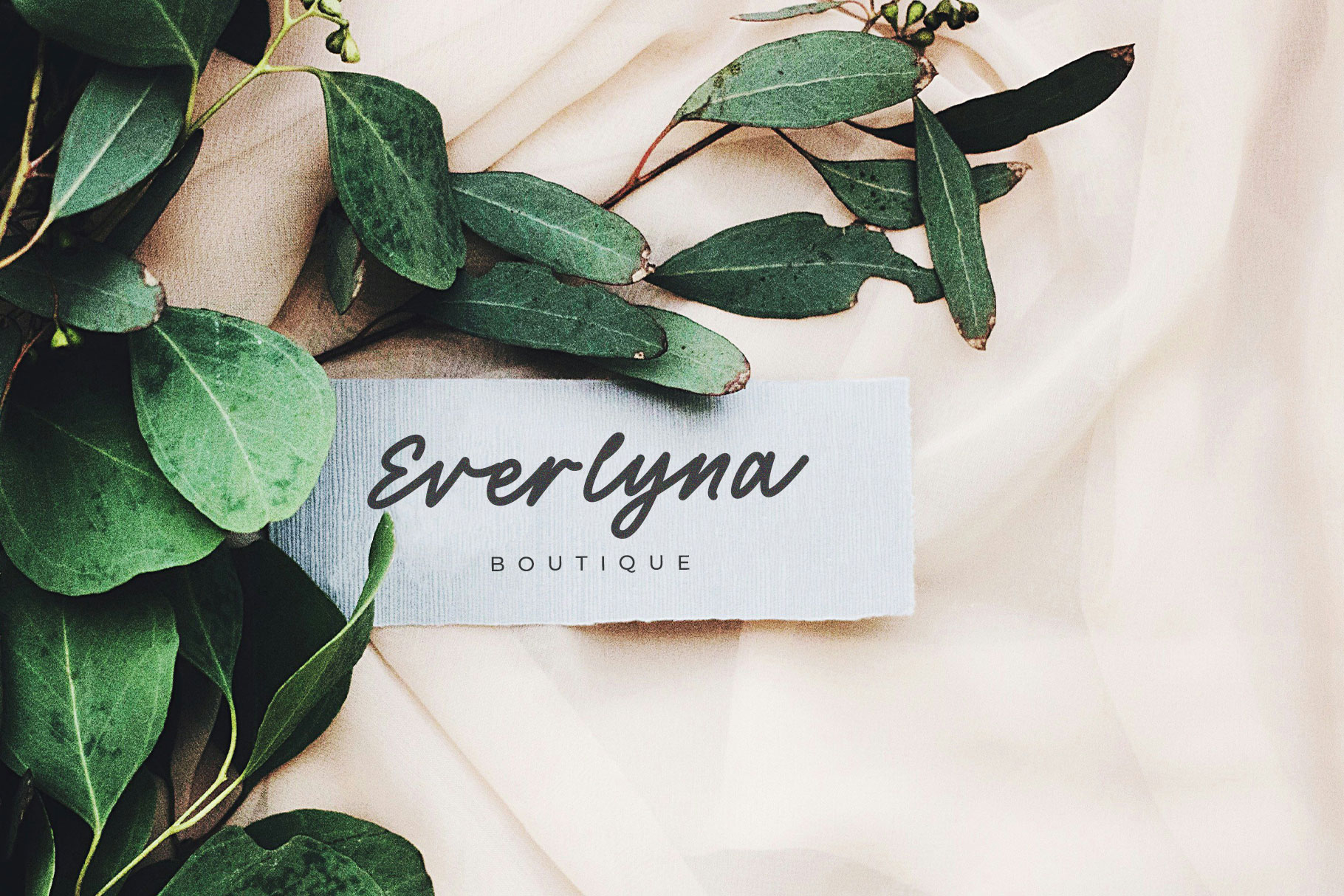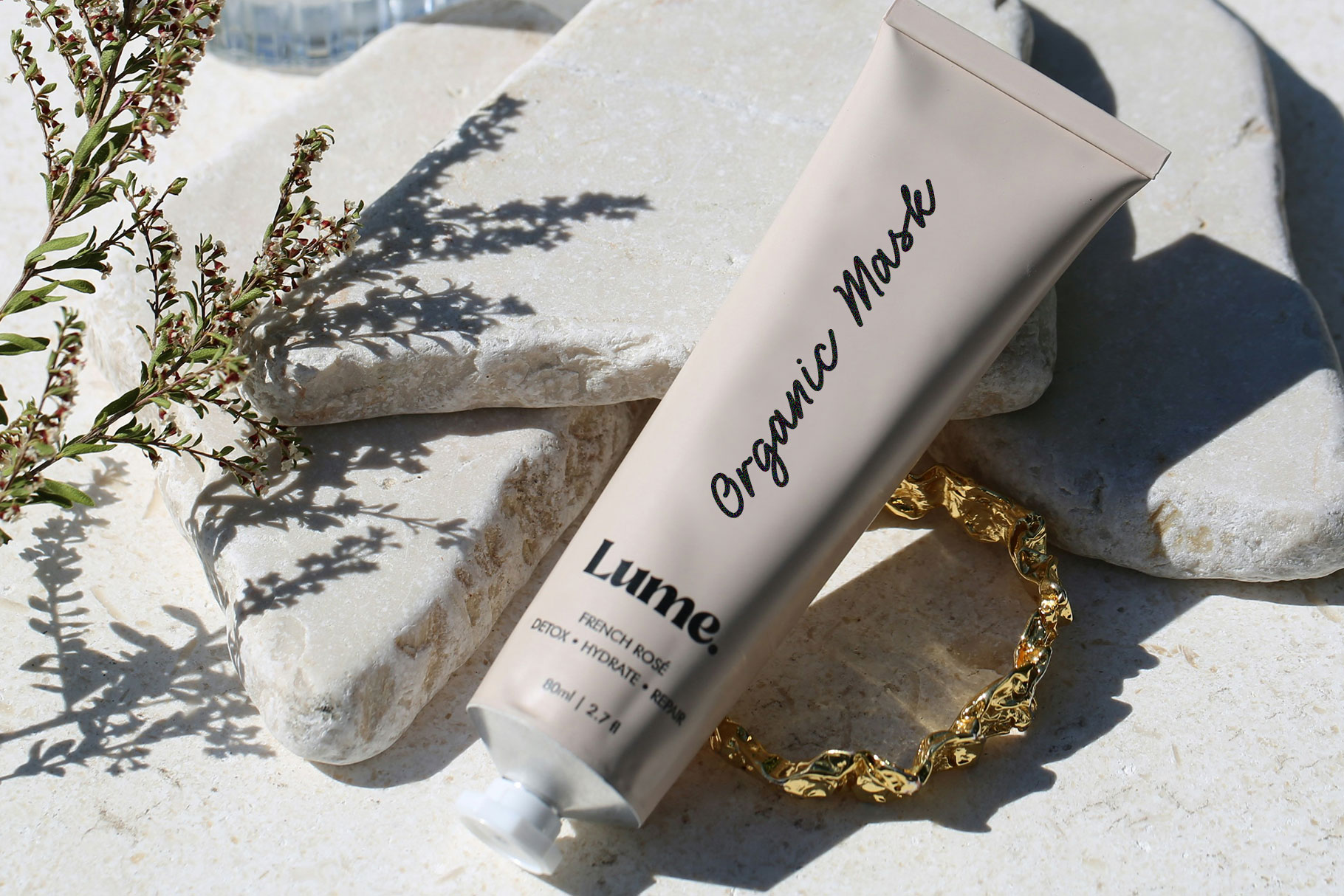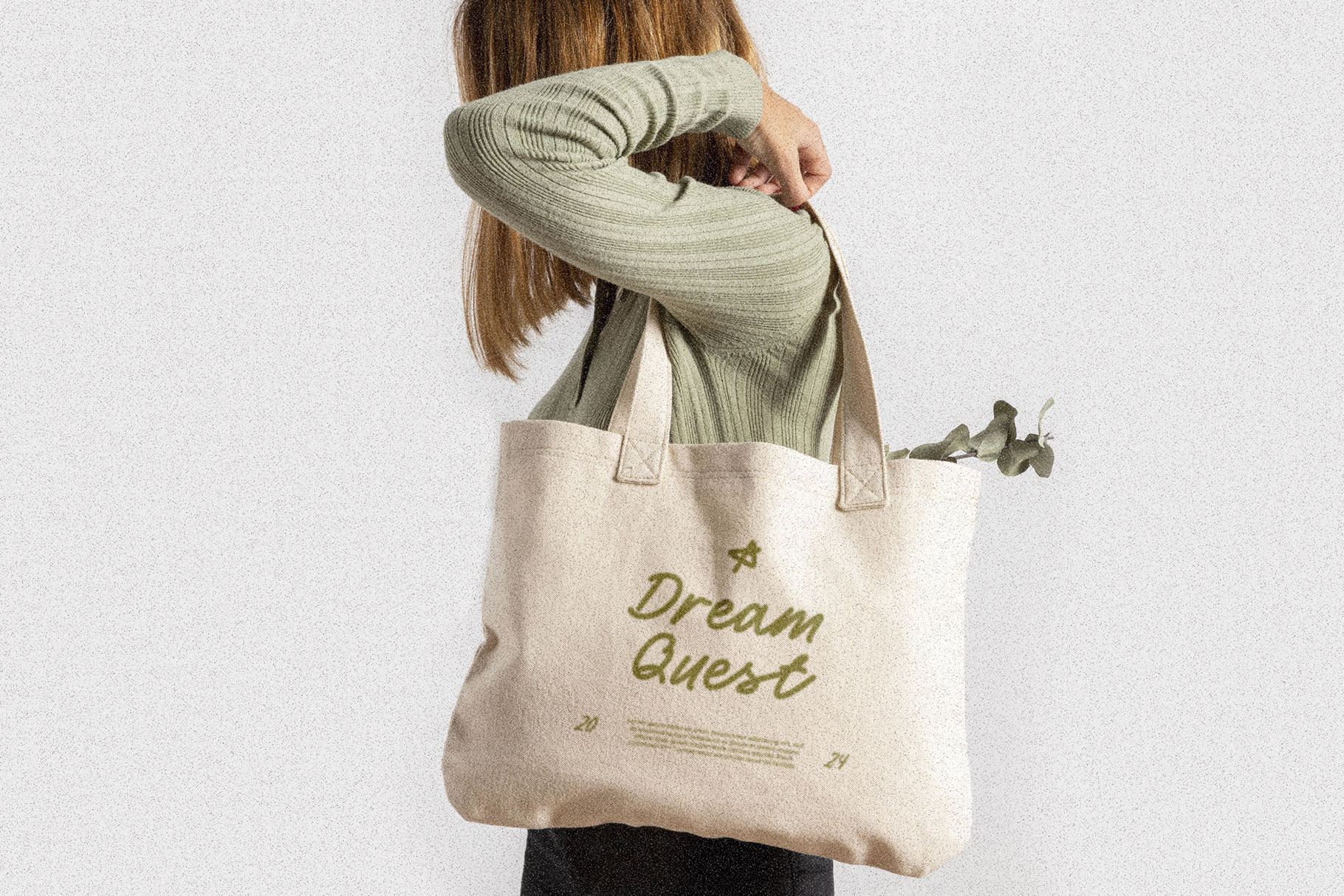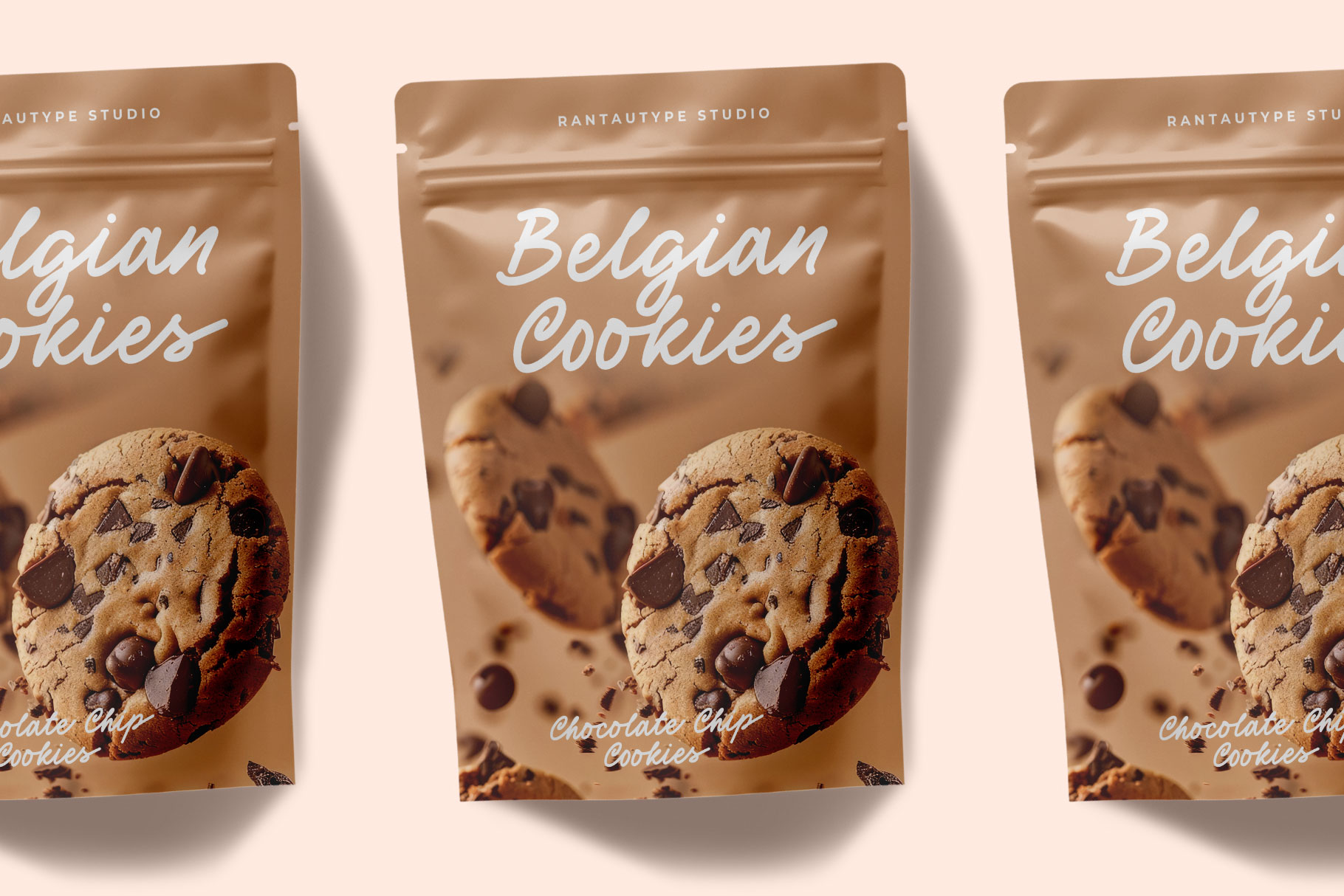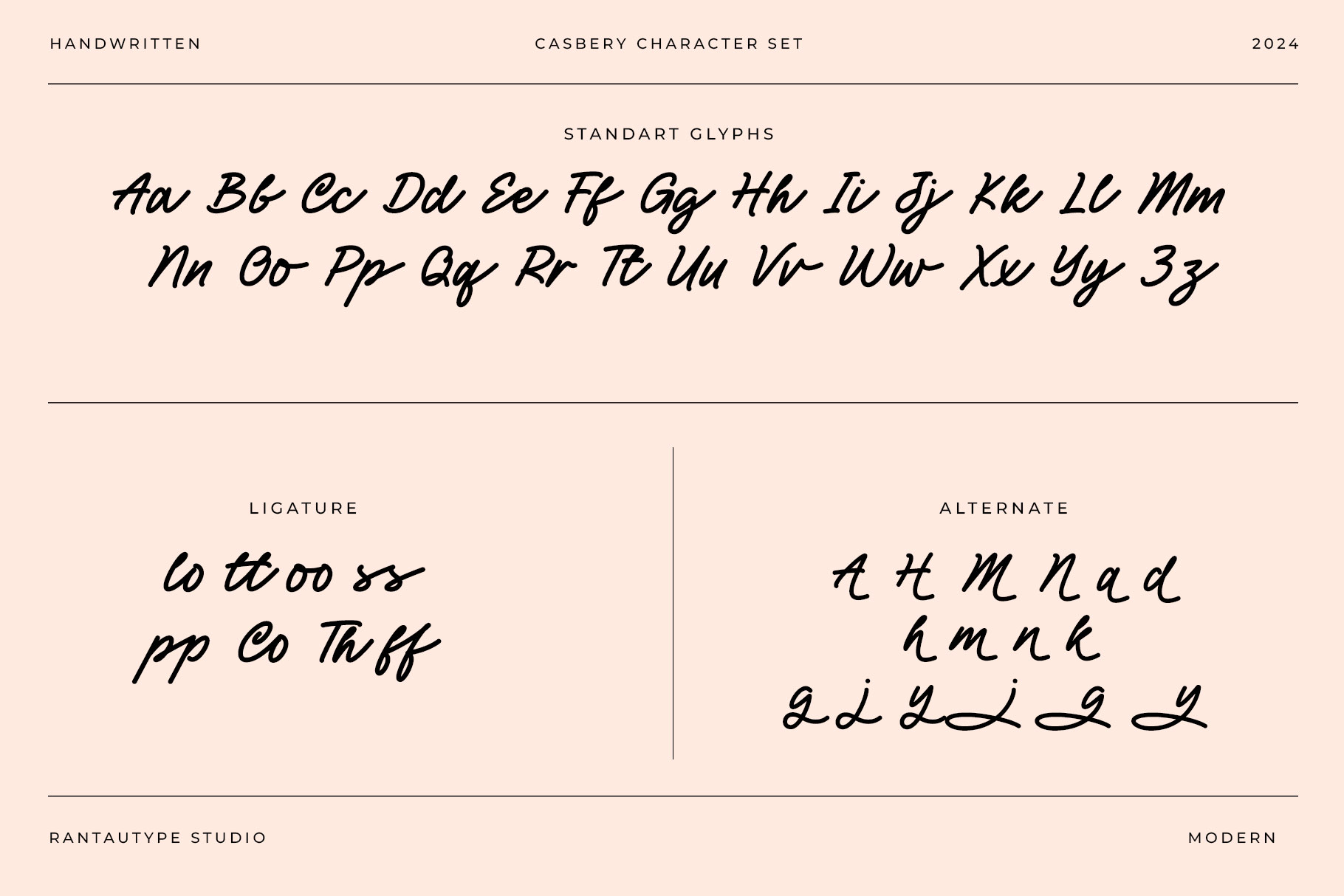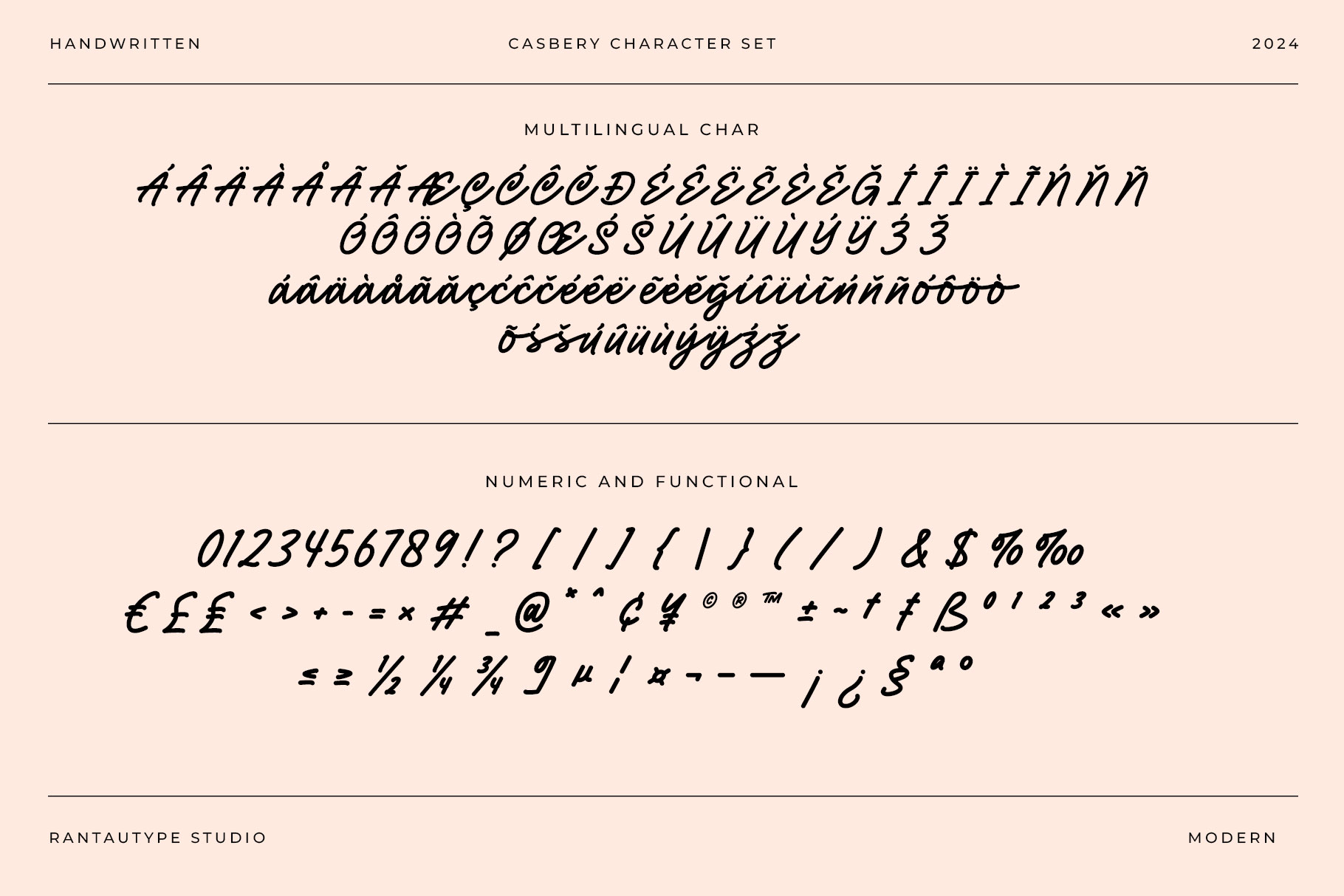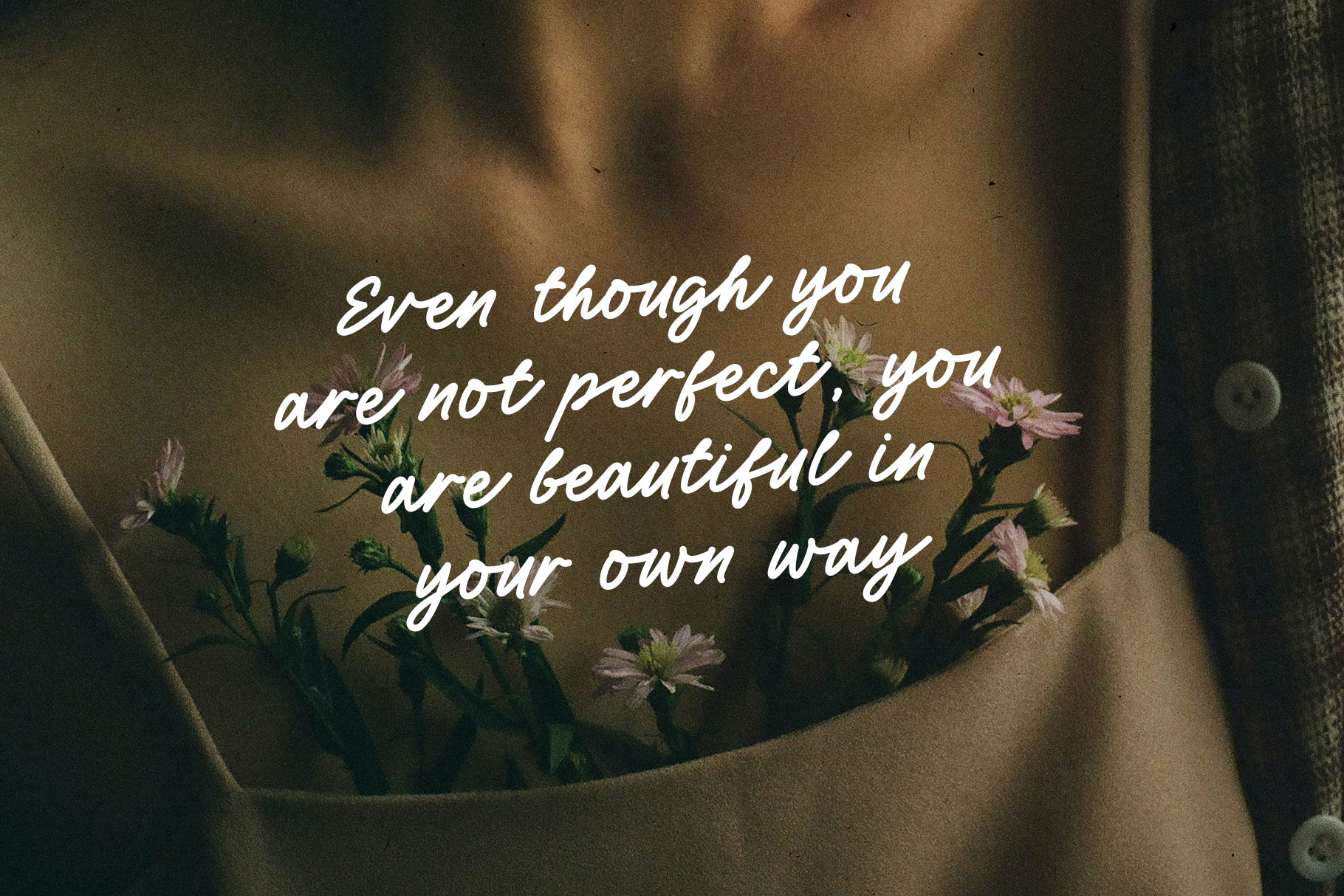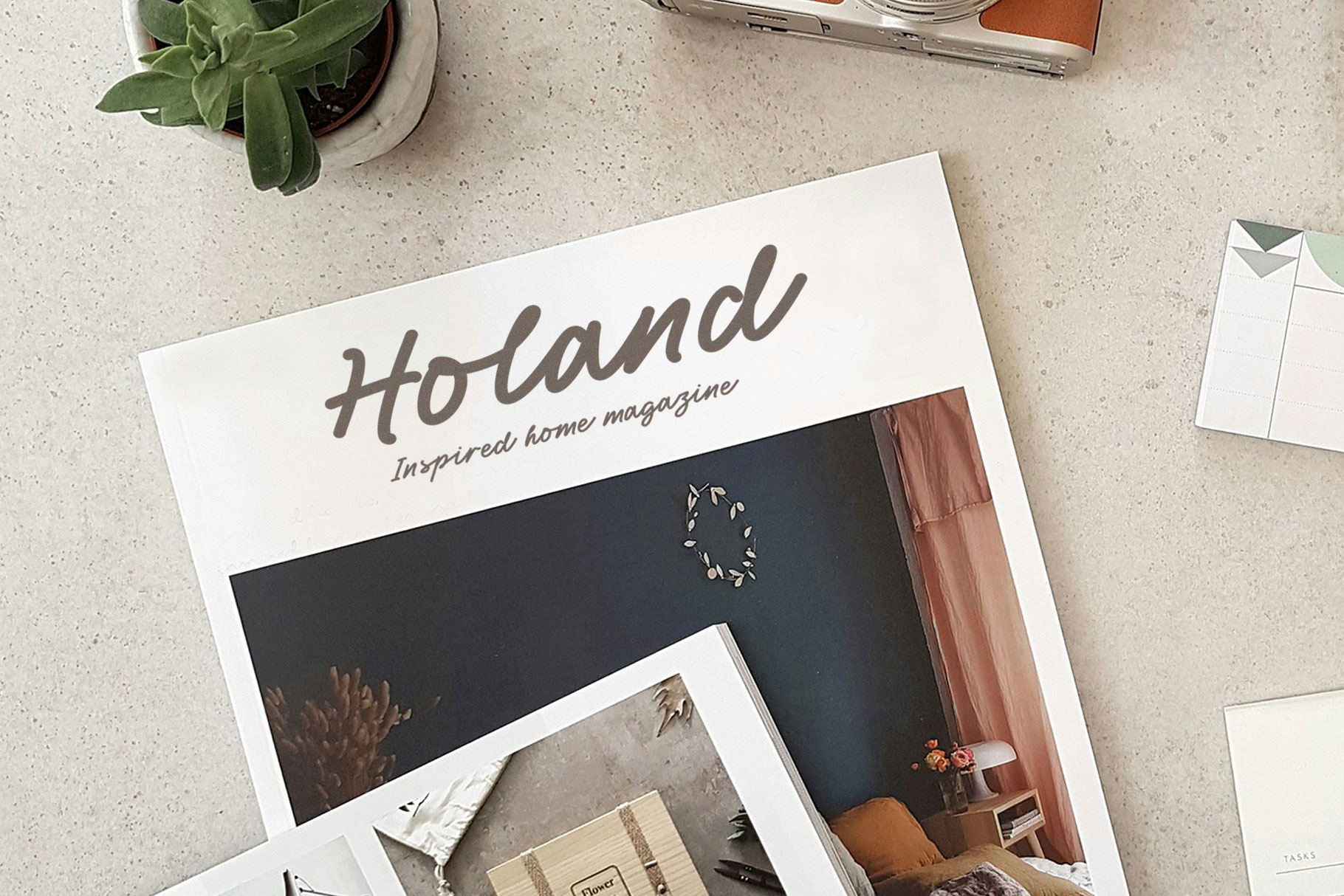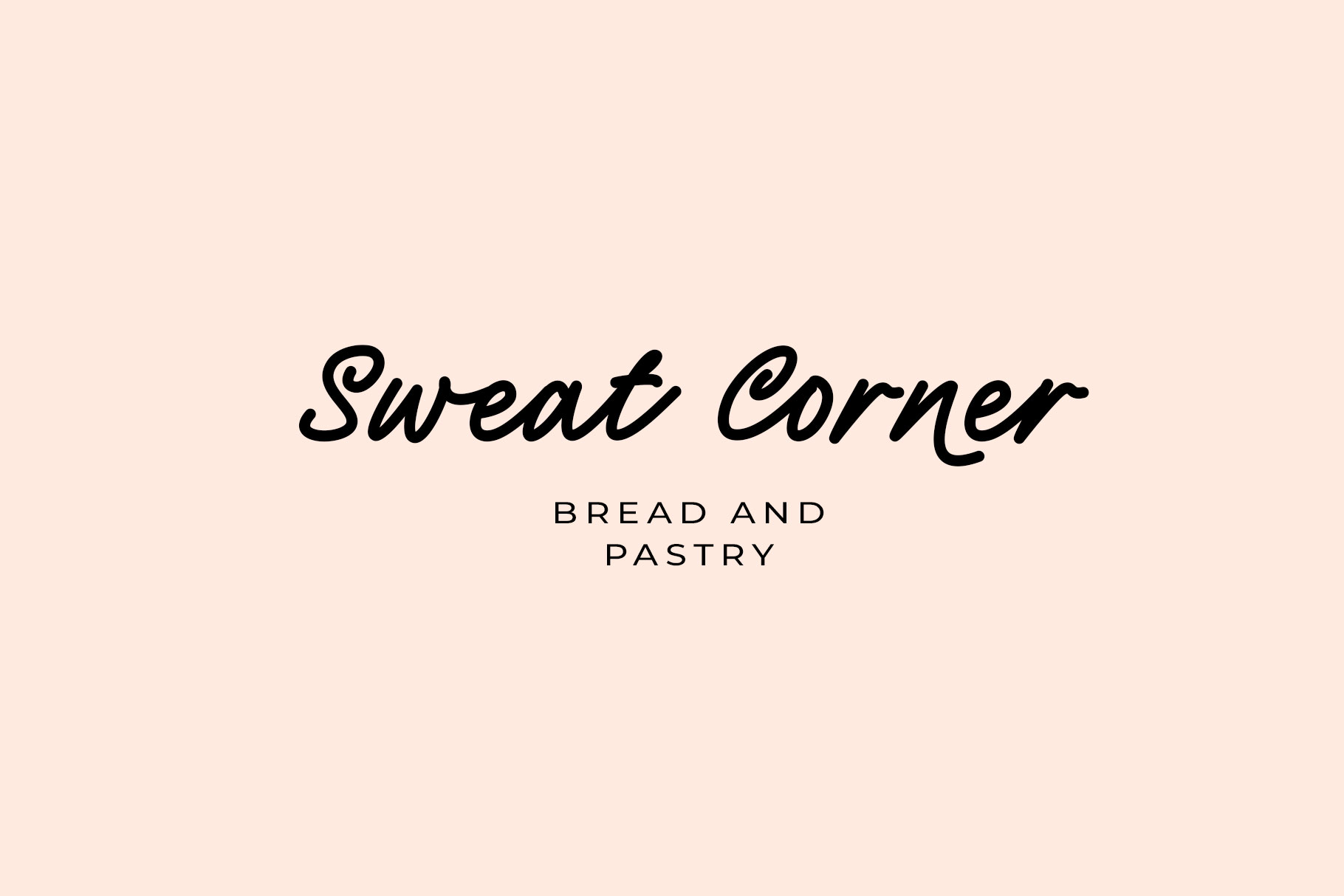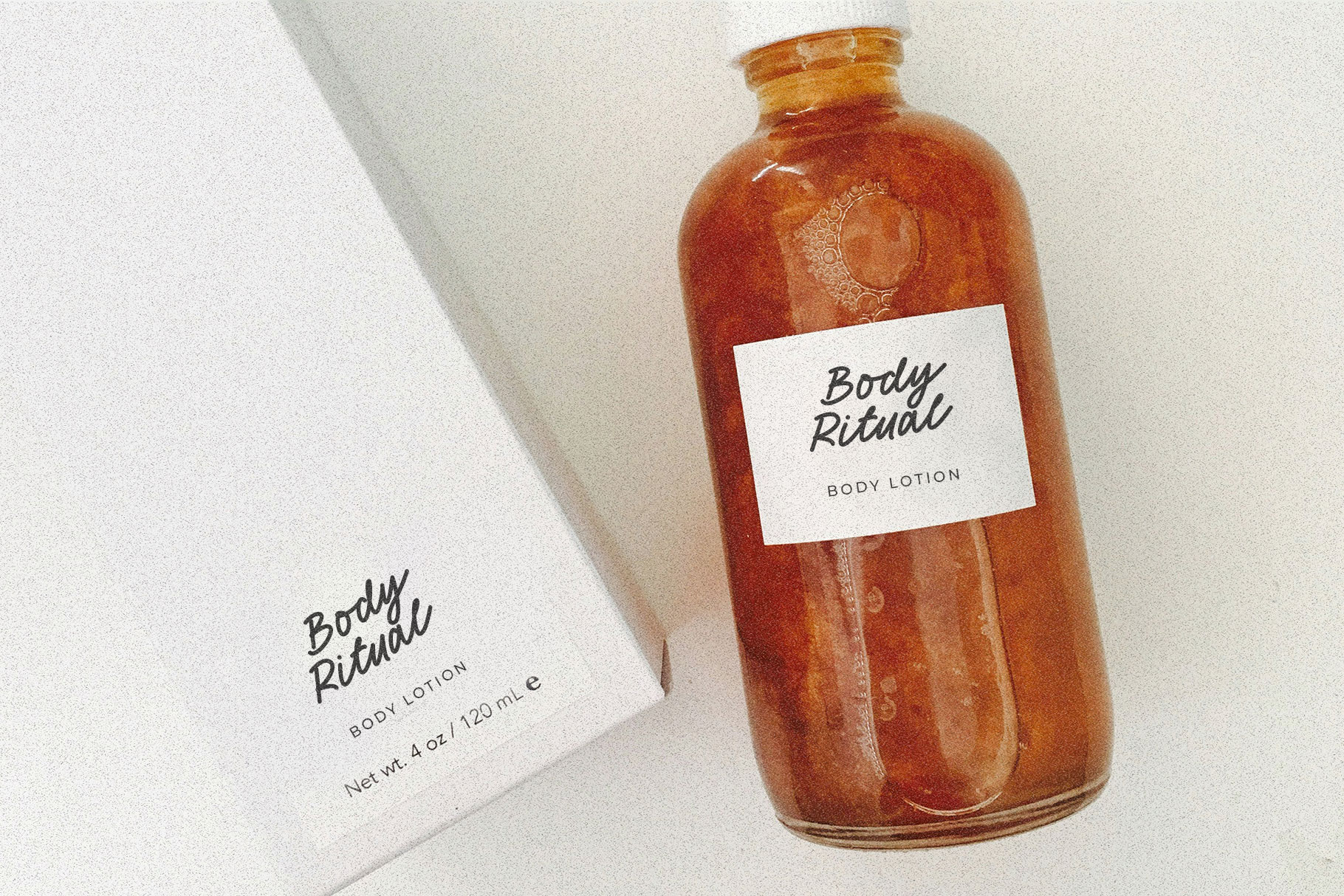
Casbery Script Font
Casbery is fresh and retro handwritten font. Casbery bring flowless shape make clean look. Casbery come with alternate so that you can mix and match to suit your creativity.
Casbery is a perfectly choice for any creative endeavor, chic, lifestyle design such as logotype, advertisements, watermark on photography, stationery, branding project, display and magazine, invitation, corporate brand, product design, label, business project and many other project with fun touch.